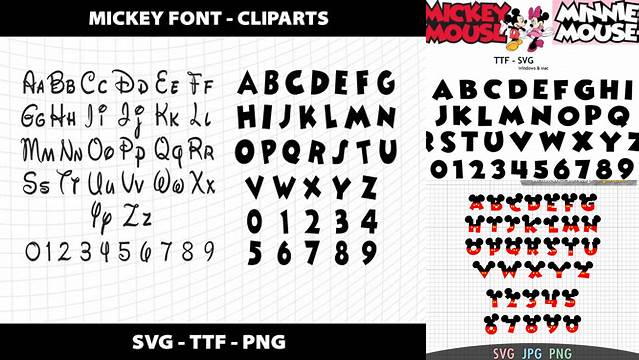
90's Mickey Mouse Font SVG: A Nostalgic Design
Hey guys! Ever feel that wave of nostalgia hit you hard? If you're a fan of the 90s and the iconic Mickey Mouse, you're in for a treat! We're diving deep into the world of the 90's Mickey Mouse Font SVG, exploring everything from its origins to how you can use it in your creative projects. This font isn't just letters; it's a trip down memory lane, bringing back the fun and whimsy of a beloved era. So, let's get started and unleash some of that 90s magic!
What is the 90's Mickey Mouse Font SVG?
The 90's Mickey Mouse Font SVG is a digital typeface that captures the essence of the classic Mickey Mouse branding from the 1990s. This font embodies the playful, energetic, and slightly retro vibe that defined the era. Imagine the vibrant colors, bold lines, and the unmistakable charm of Mickey Mouse – that's what this font brings to your designs. It's not just about the letters; it’s about the feeling, the nostalgia, and the connection to a simpler time. Whether you're working on a birthday invitation, a scrapbook page, or a custom t-shirt, this font adds a touch of magic and familiarity that's hard to resist.
1. History of Mickey Mouse Font
To truly appreciate the 90's Mickey Mouse Font SVG, we need to take a stroll through the history of Mickey Mouse fonts in general. Mickey Mouse first graced our screens in 1928, and since then, his image and branding have evolved significantly. The fonts used for Mickey Mouse-related content have mirrored these changes, reflecting different artistic styles and trends over the decades. Early Mickey Mouse fonts were often hand-drawn and had a whimsical, slightly uneven quality that added to their charm. As animation and design techniques advanced, so did the fonts. Each era brought its own unique flair, but the 90s were particularly special. The 90s font style was bold, bright, and full of character, perfectly capturing the energetic spirit of the decade and the timeless appeal of Mickey Mouse.
2. Characteristics of 90's Fonts
What exactly makes a font scream "90s"? Well, the 90's Mickey Mouse Font SVG is no exception and it is characterized by a few key elements. Think bold, rounded shapes, a playful feel, and a touch of whimsy. Many fonts from this era have a slightly cartoonish quality, making them perfect for children's content and anything that needs a dash of fun. The colors are also a big part of the equation – bright, saturated hues were all the rage in the 90s. This font often incorporates these elements, making it instantly recognizable and nostalgic. It’s the kind of font that makes you want to break out your old video games and relive those carefree days. The use of bubble letters and dynamic shapes also contribute to the distinctive 90s aesthetic.
3. Distinguishing Features of Mickey Mouse 90's Font
The 90's Mickey Mouse Font SVG isn't just any 90s font; it has specific features that tie it directly to the iconic mouse. The letterforms often incorporate rounded edges and soft curves, reminiscent of Mickey's own silhouette. You might even find subtle nods to Mickey's ears or other iconic features within the letters themselves. The overall feel is friendly and approachable, reflecting Mickey's cheerful personality. This font isn’t just about typography; it’s about capturing the essence of a beloved character and bringing that to life in written form. The balance between nostalgia and modern design makes it a versatile choice for various projects, allowing fans to connect with their favorite character in a unique way.
7. Project Ideas Using the 90's Mickey Mouse Font
Need some inspiration? The 90's Mickey Mouse Font SVG is incredibly versatile and can be used in a wide range of projects. Think about creating personalized birthday invitations, designing custom t-shirts, or even making fun scrapbook pages. This font is also great for branding projects that want to evoke a sense of nostalgia and playfulness. You could use it for logos, website headers, or social media graphics. If you're feeling crafty, try using it for DIY projects like posters, stickers, or even home décor. The possibilities are endless! Consider the target audience and the message you want to convey when choosing this font for your projects. Its whimsical nature makes it particularly suitable for designs aimed at children or those with a fondness for retro aesthetics.
8. Creating 90's Themed Invitations
One of the best ways to use the 90's Mickey Mouse Font SVG is for creating 90s-themed invitations. Imagine a birthday party invitation with this font screaming "Let's Party Like It's 1995!" or a retro-themed baby shower invite. Pair the font with bright, neon colors and some classic 90s clip art, like boomboxes, cassette tapes, or even a Tamagotchi. To make your invitations even more authentic, consider using a card stock with a slightly textured finish. This adds a tactile element that enhances the retro feel. Experiment with different layouts and graphics to create a design that truly captures the essence of the 90s. The playful and nostalgic nature of the font makes it an ideal choice for any event that aims to transport guests back to this iconic decade.
30. Final Thoughts: Unleashing Your Creativity with the Font
The 90's Mickey Mouse Font SVG is more than just a typeface; it's a gateway to a world of creativity and nostalgia. Whether you're designing invitations, creating custom apparel, or adding a retro touch to your branding, this font can help you bring your vision to life. Its playful and iconic design makes it a versatile choice for a wide range of projects. Don't be afraid to experiment with different combinations, layouts, and colors to create designs that are truly unique. The key is to unleash your creativity and have fun with the process. This font is a powerful tool for expressing your personality and connecting with your audience on an emotional level. So go ahead, download the font, and start creating your own 90s-inspired masterpieces! You got this!